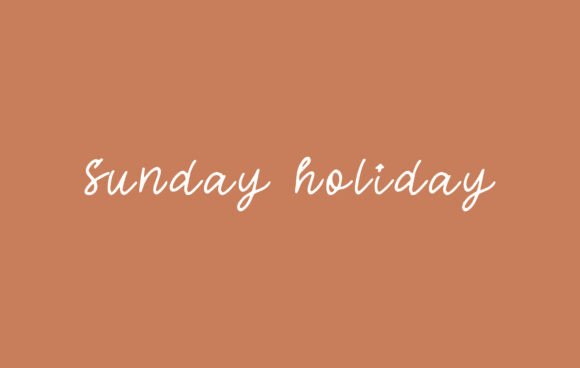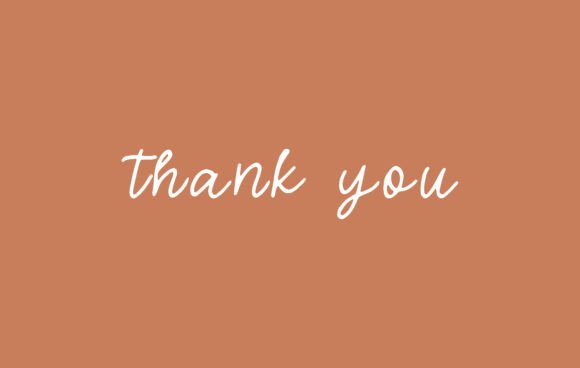
Glimmer Font: Elevate Your Designs with a Romantic Touch
Are you looking for a font that can add a touch of romance and elegance to your designs? Look no further than Glimmer Font, an authentic handwritten font that is sure to become a true favorite among designers and crafters. In this article, we’ll explore the features and benefits of Glimmer Font, and show you how it can help take your creative ideas to the next level.
What is Glimmer Font?
Glimmer Font is a beautifully designed handwritten font that exudes a romantic touch. Its unique and elegant style makes it perfect for a wide range of design projects, from magazine headlines and social media graphics to branding, wedding invitations, and cards. Whether you’re a professional designer or a crafty DIY enthusiast, Glimmer Font is sure to inspire your creativity.
Key Features of Glimmer Font
So, what makes Glimmer Font so special? Here are just a few of its key features:
- Authentic Handwritten Style: Glimmer Font is a genuine handwritten font, carefully crafted to capture the nuances and imperfections of handwriting.
- Romantic Touch: With its elegant and flowing lines, Glimmer Font adds a touch of romance and sophistication to any design.
- Legible and Versatile: This font is not only beautiful but also highly legible, making it perfect for use as both title and body text.
- Wide Range of Uses: From magazine headlines and social media graphics to branding, wedding invitations, and cards, Glimmer Font is suitable for a wide range of design projects.
Benefits of Using Glimmer Font
So, why should you choose Glimmer Font for your next design project? Here are just a few benefits of using this amazing font:
- Adds a Personal Touch: With its handwritten style, Glimmer Font adds a personal and human touch to your designs, setting them apart from more generic and impersonal fonts.
- Enhances Readability: Despite its elegant and cursive style, Glimmer Font is highly legible, making it perfect for use in body text as well as headlines.
- Increases Creativity: With Glimmer Font, you can add a touch of romance and whimsy to your designs, inspiring your creativity and helping you to think outside the box.
- Perfect for Branding: Glimmer Font is ideal for use in branding, helping you to create a unique and memorable visual identity for your business or product.
How to Use Glimmer Font in Your Designs
So, how can you use Glimmer Font in your designs? Here are a few ideas to get you started:
- Magazine Headlines: Use Glimmer Font to create eye-catching headlines and titles for your magazine or blog.
- Social Media Graphics: Add a touch of elegance and sophistication to your social media graphics with Glimmer Font.
- Wedding Invitations: Make your wedding invitations truly special with Glimmer Font, adding a romantic and whimsical touch.
- Branding and Packaging: Use Glimmer Font to create a unique and memorable visual identity for your business or product.